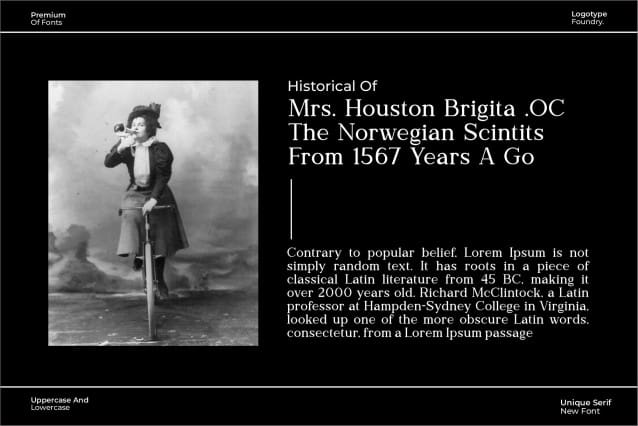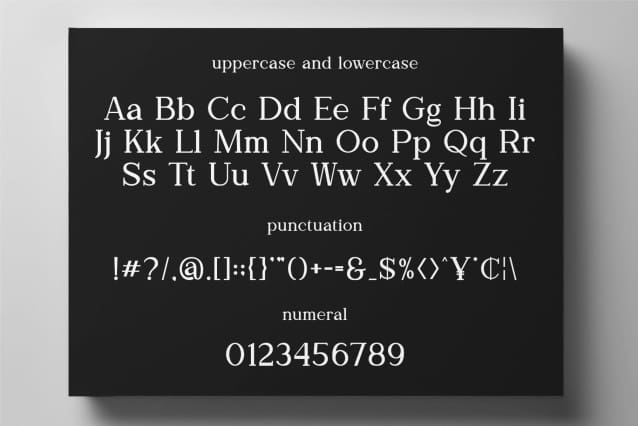
Raphsodi Gliternas Font
Raphsodi Gliternas is serif font with classic style, trendy, bouncy and cute display font. It has a unique character with wood theme. It is perfect to be combined with invitation card designs, company logos, movie titles, movie names, business cards, book titles, brand names and various other designs.